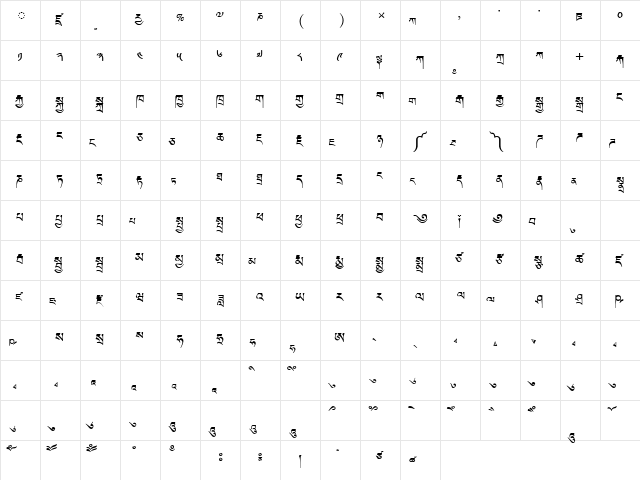
TCRC Bod-Yig Regular
| Foundry | TCRC |
| Designer | Jigme Tsering |
Design Context for TCRC Bod-Yig Typeface
TCRC Bod-Yig is a composed and adaptable typeface that performs quietly and consistently across a wide range of design contexts.